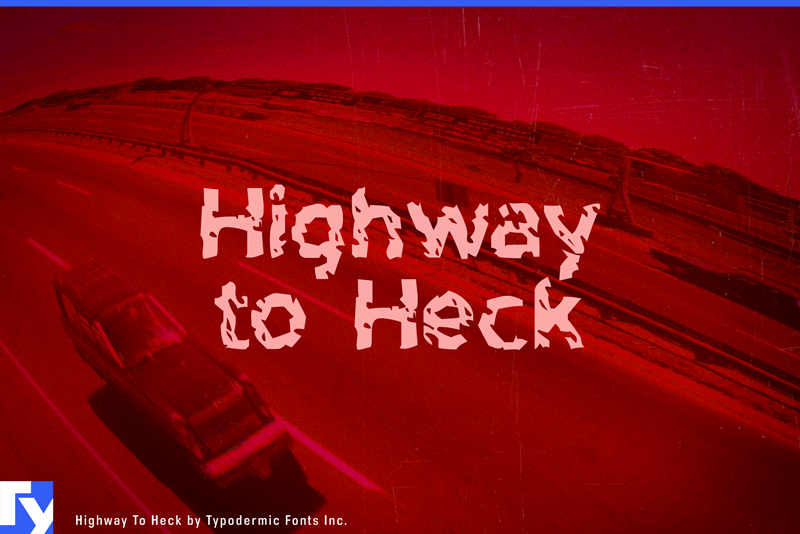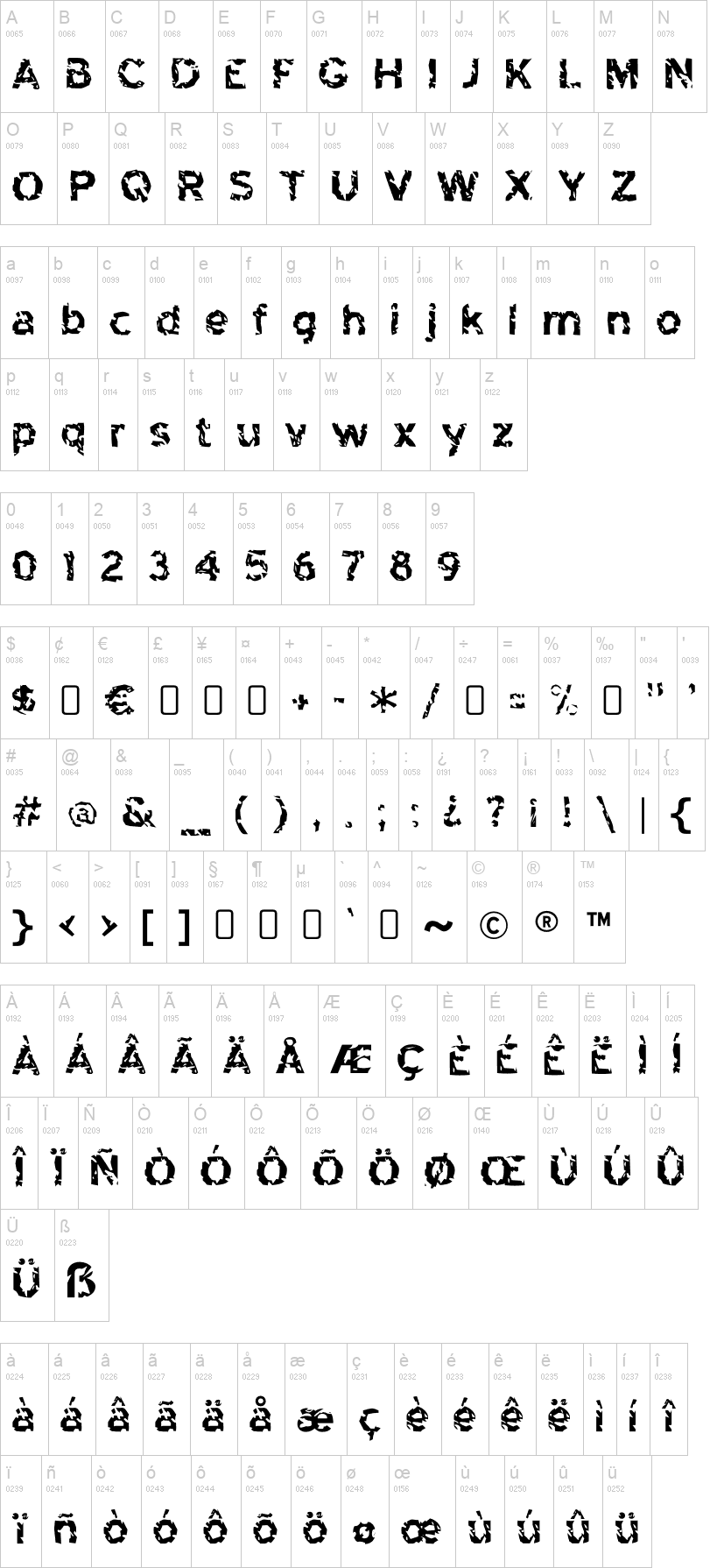
Note of the authorHighway To Heck is a crumbling highway font, wasting away. Its rusty letterforms are based on U.S. Department of Transportations FHWA Series of Standard Alphabets. Some Latin-based European writing systems are supported, including the following languages. Afaan Oromo, Afar, Afrikaans, Albanian, Alsatian, Aymara, Basque, Bemba, Bikol, Breton, Cape Verdean, Creole, Catalan, Cebuano, Chamorro, Chavacano, Danish, Dawan, Dholuo, Dutch, English, Estonian, Faroese, Fijian, Filipino, Finnish, French, Frisian, Friulian, Galician, Genoese, German, Guadeloupean Creole, Haitian Creole, Hiligaynon, Icelandic, Ilocano, Indonesian, Irish, Italian, Jamaican, Kaqchikel, Kikongo, Kinyarwanda, Kirundi, Lombard, Low Saxon, Luxembourgish, Makhuwa, Malay, Ndebele, Neapolitan, Norwegian, Novial, Occitan, Papiamento, Piedmontese, Portuguese, Quechua, Rarotongan, Romansh, Sango, Saramaccan, Sardinian, Scottish Gaelic, Shona, Sicilian, Silesian, Slovak, Slovenian, Somali, Sotho, Spanish, Swahili, Swazi, Swedish, Tagalog, Tetum, Tshiluba, Tsonga, Tswana, Tumbuka, Uzbek (Latin), Venetian, Võro, Walloon, Waray-Waray, Wayuu, Xhosa, Yapese, Zapotec Zulu and Zuni.